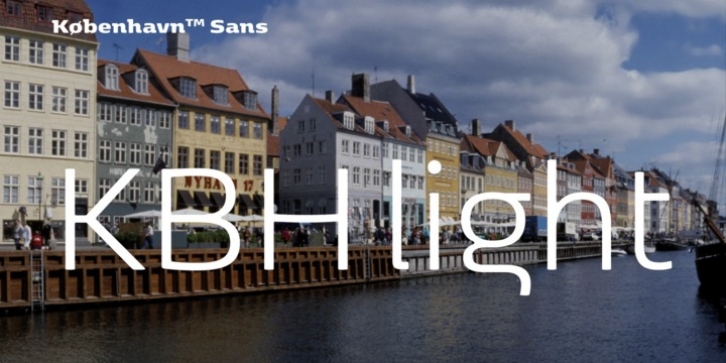
Publisher: Fontpartners
Copenhagen has been in need of a typeface that unites the city's many visual expressions.
The three designers Morten Rostgaard Olsen, Henrik Birkvig and Ole Søndergaard have designed and developed the typeface FP København. Now available from MyFonts in 44 styles: Serif & sans serif, uprights & italics, small caps, pictos-characters, stencils, sprayed style, OT-features, ligatures, contextual alternates etc.
The shapes of the letters are inspired by the city's culture and the visual environment and design in Denmark in the 20th century. It is relatively low and wide as the city itself and with rounded corners that give it a warm visual mood.